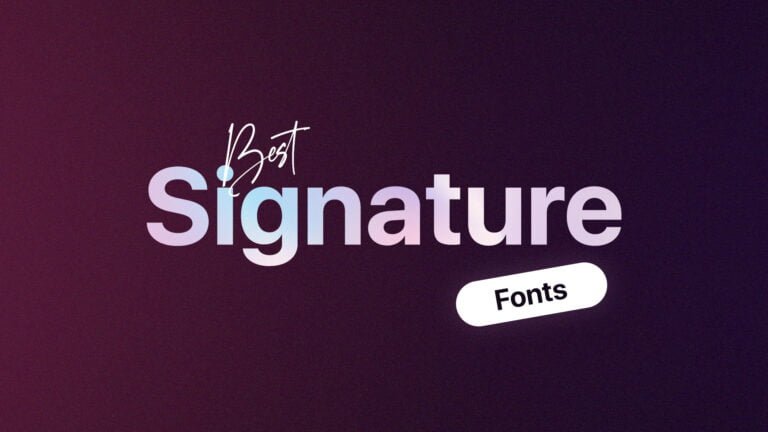
Best Signature fonts with download links.📣
for your personal signature, you need something more – curves, modern calligraphy style, some non-ideal elements that mimic handwriting. Whatever it is, the sheriff, ideal fonts will never give you this handwriting vibe on your certificates.❤️
Ballondior Font
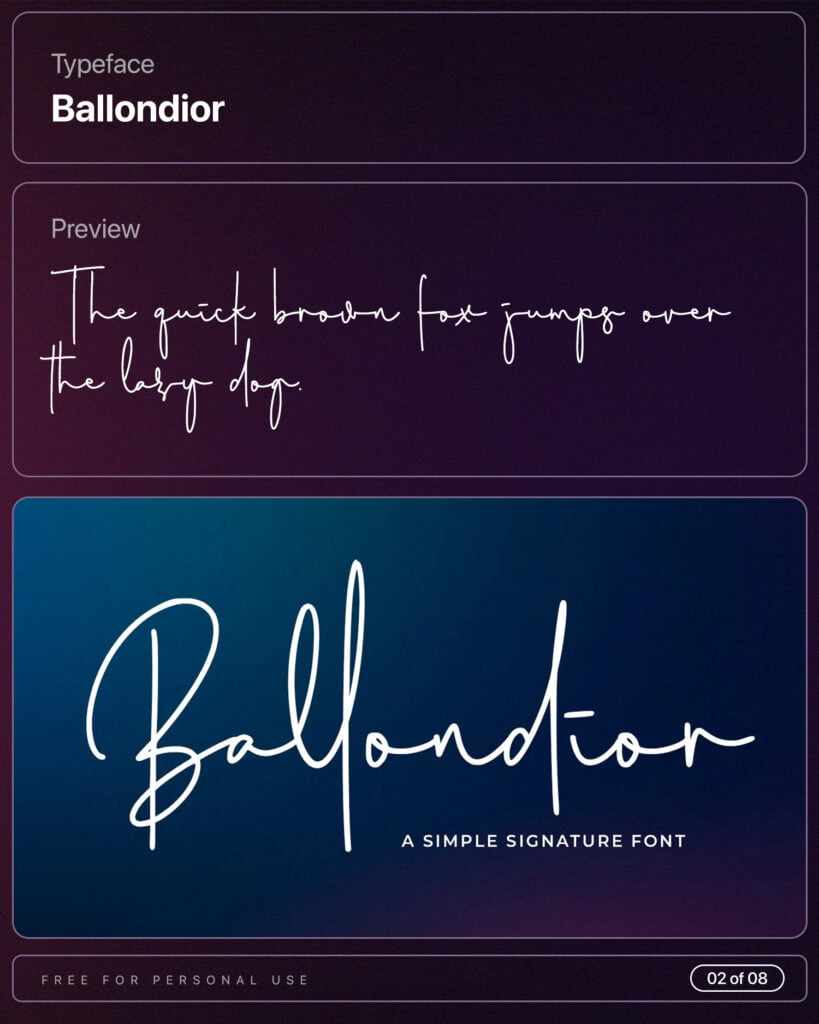
Better Chill Font
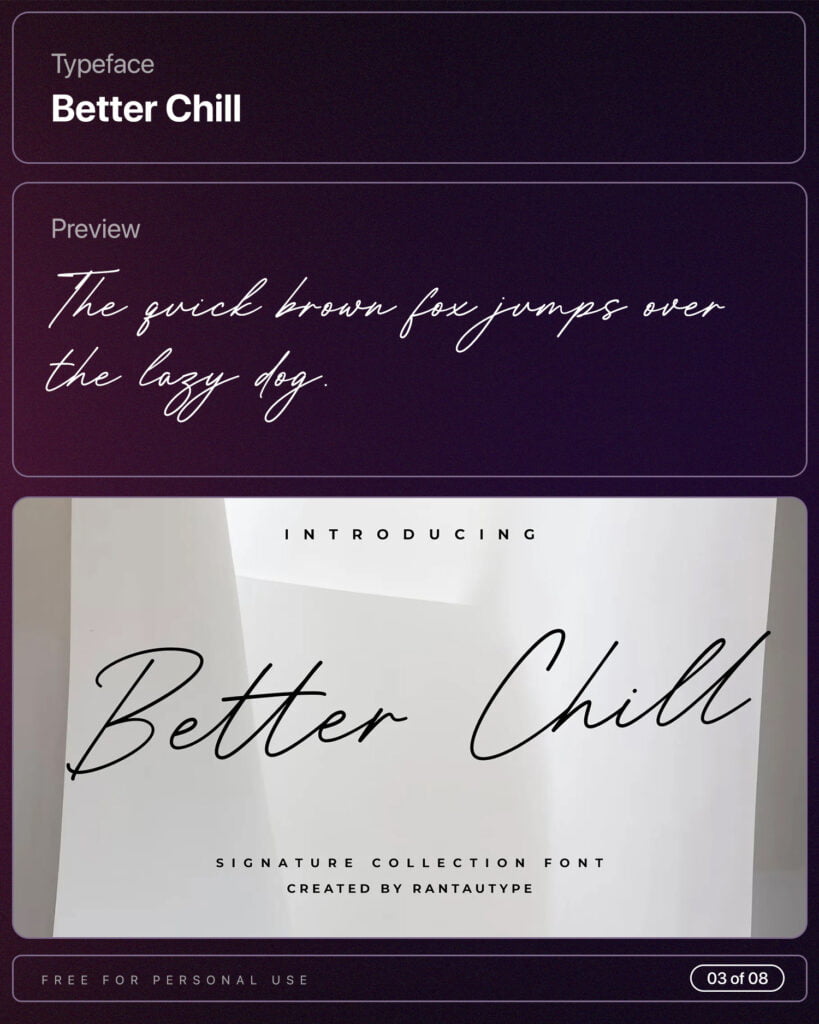
Callisa Beauty Font
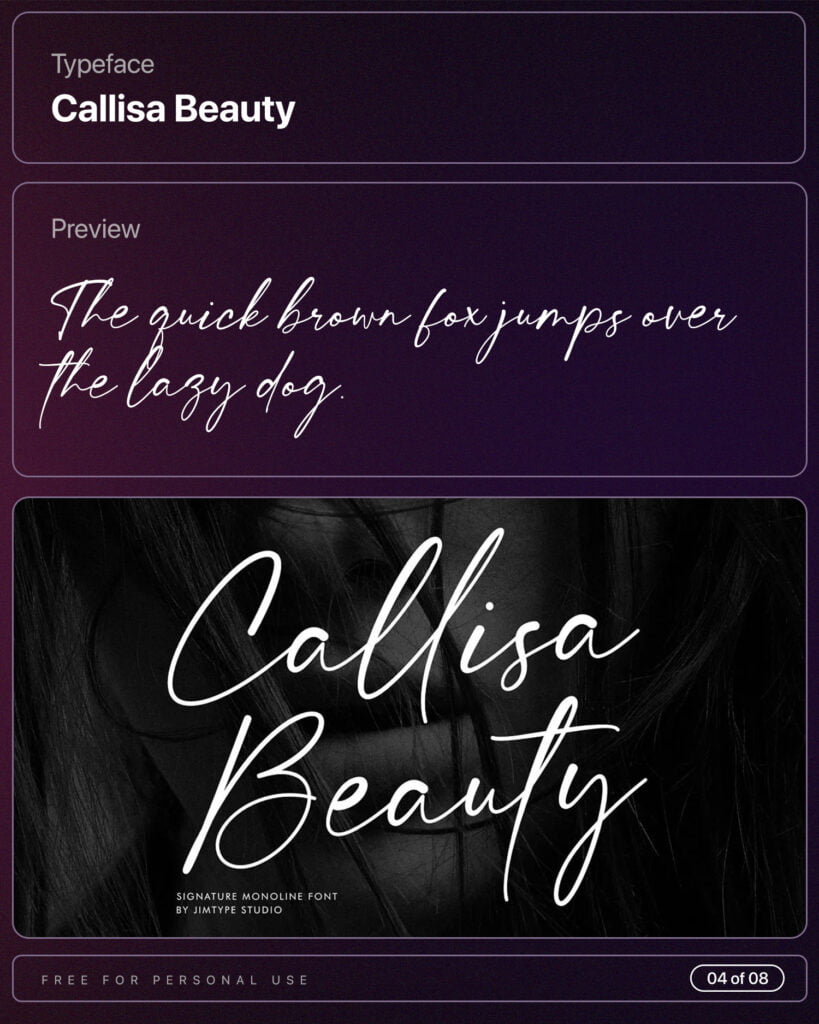
Heligthon Signature font
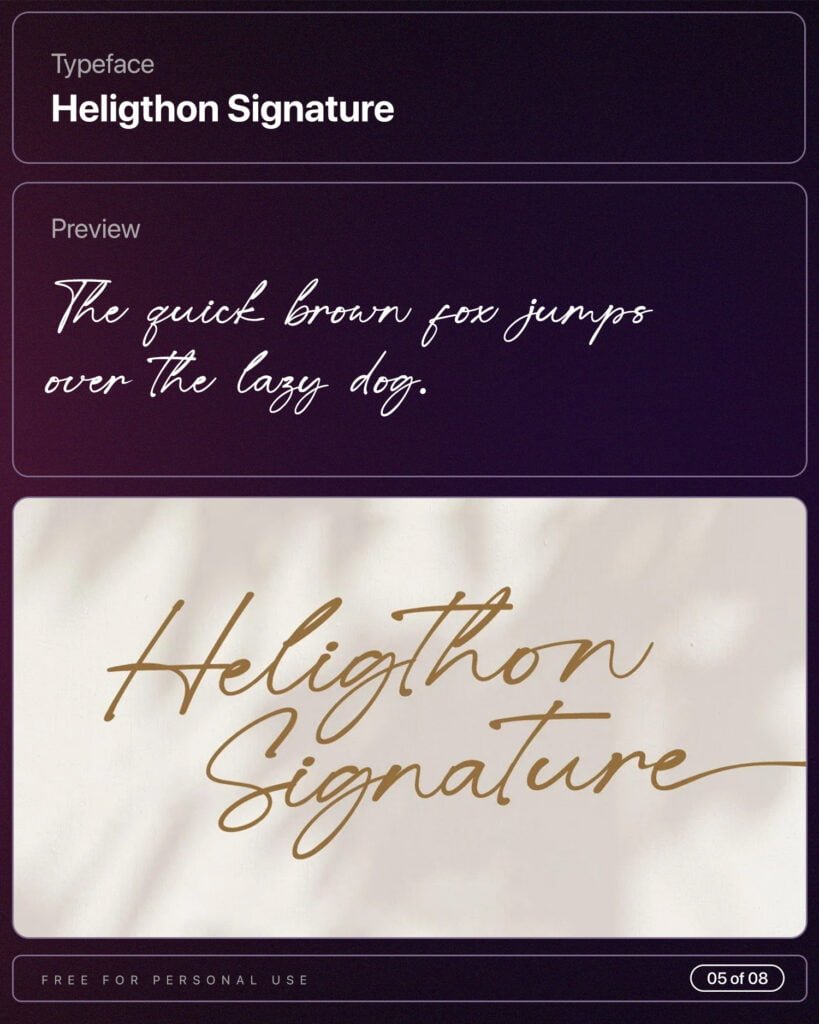
Madeline Font
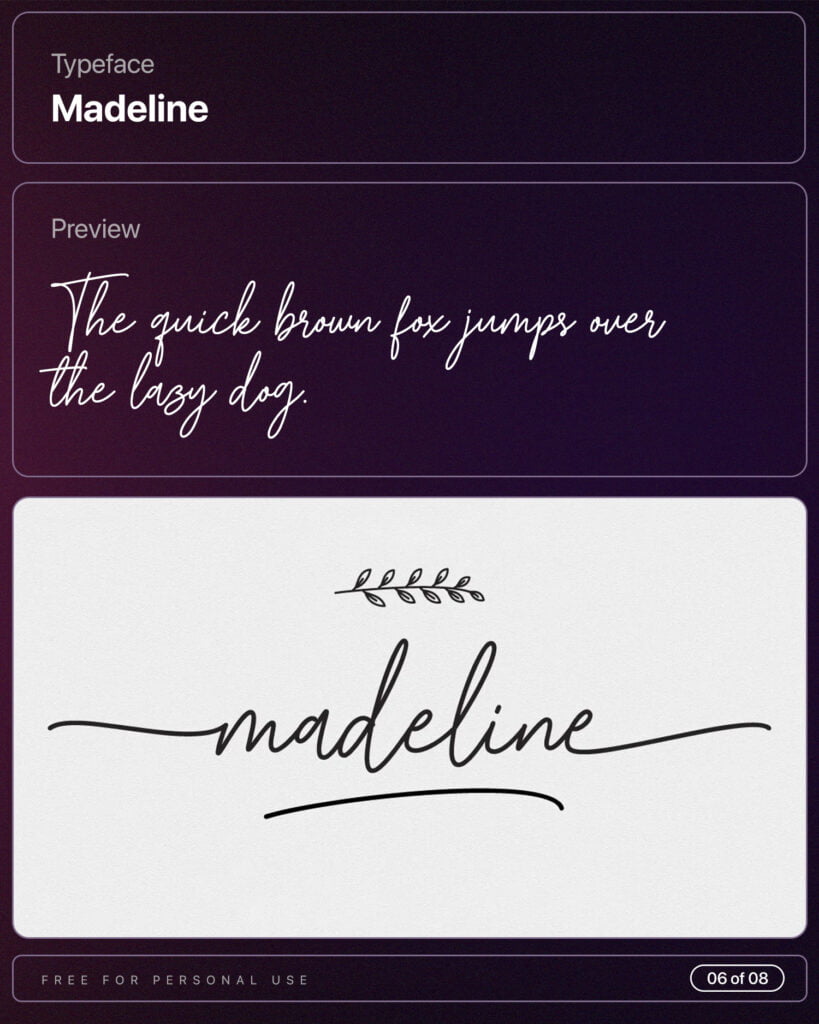
Rusticlake Font